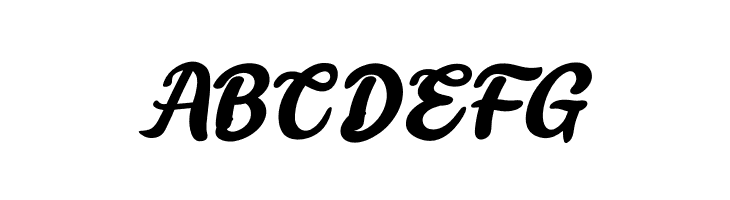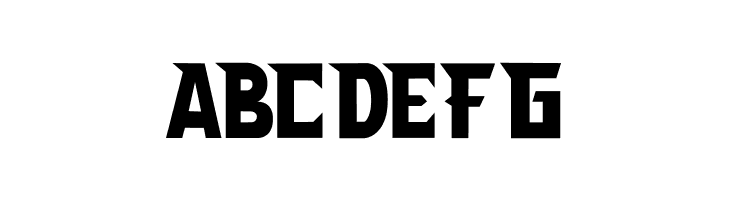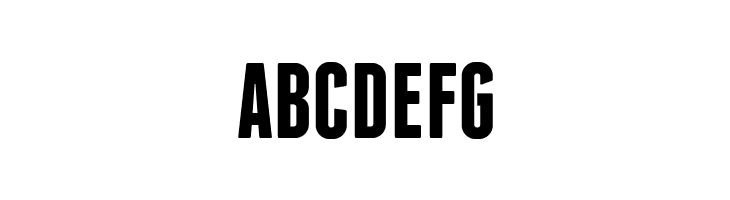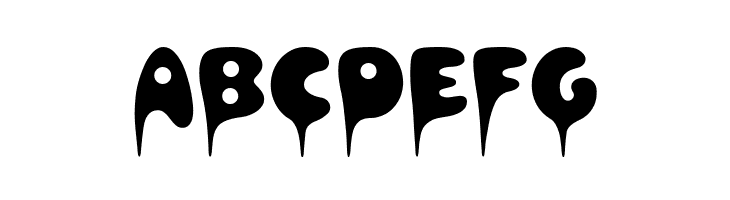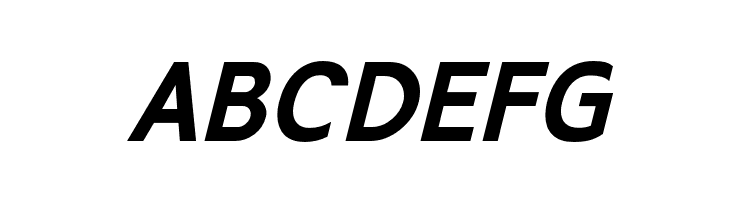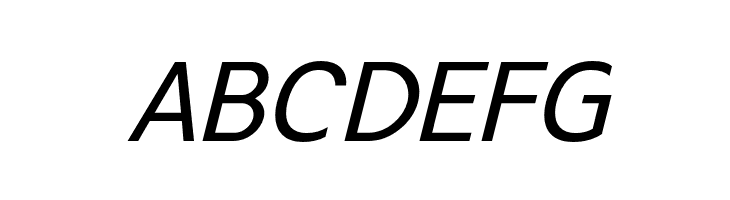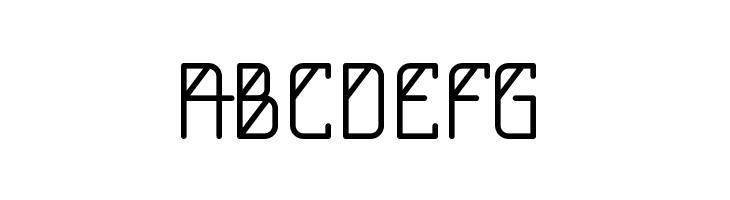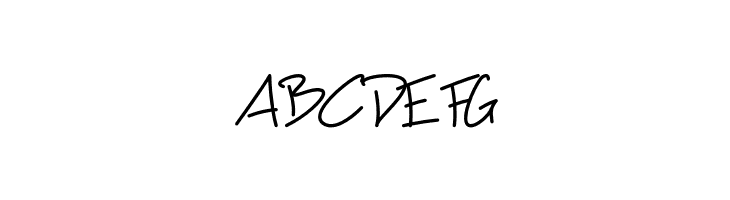
A bold, italic font with a modern and dynamic style.
A modern, italicized font with medium contrast and normal spacing.
A bold, elegant script font with flowing, cursive letterforms.
A bold, angular font with a geometric and modern style.
A bold, modern font with strong lines and a condensed width.
A bold, dripping font with a playful, liquid-like appearance.
A modern, geometric font with angular, consistent lines.
A geometric, modern font with sharp angles and a futuristic style.
A dynamic handwritten font with fluid, expressive strokes.